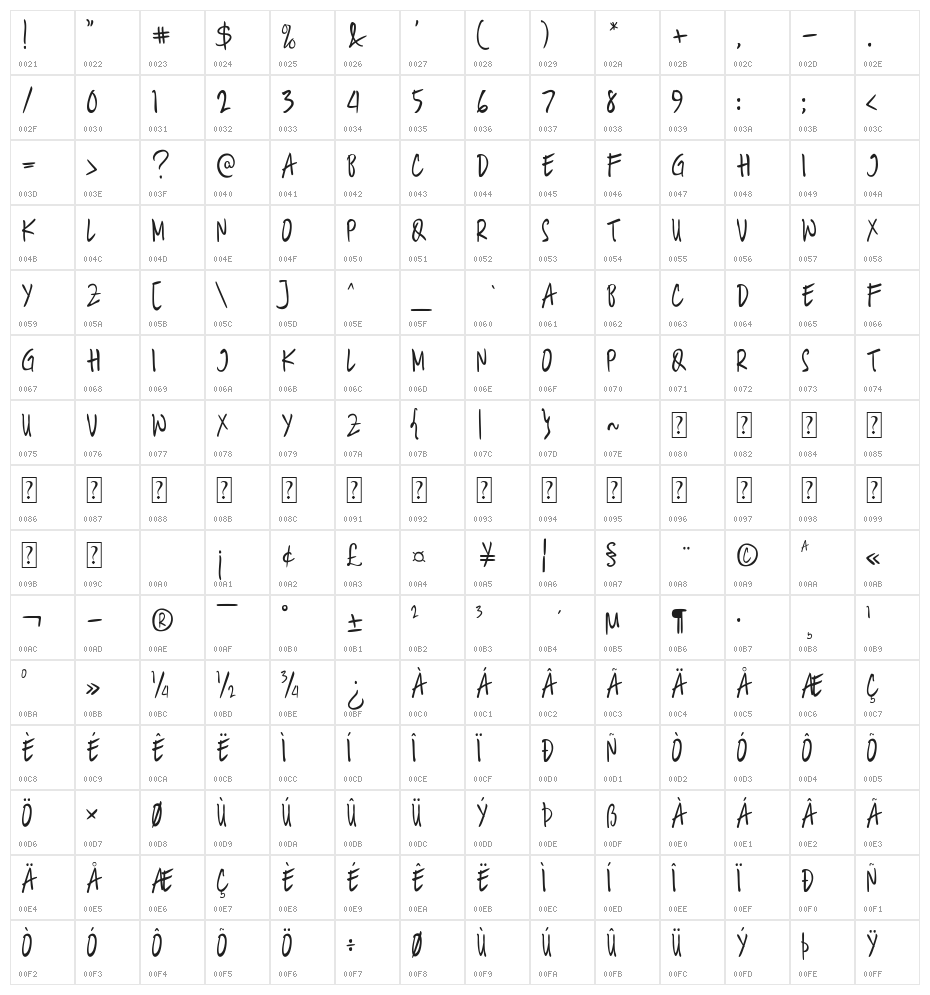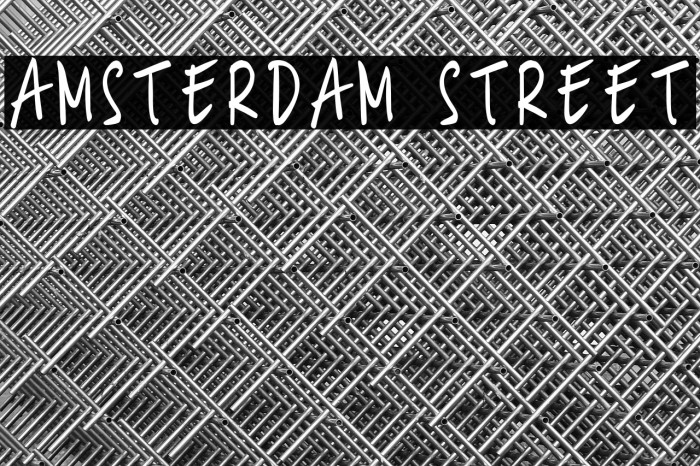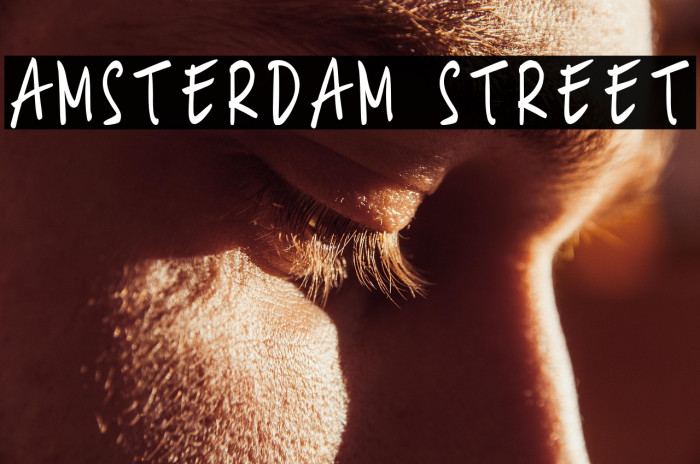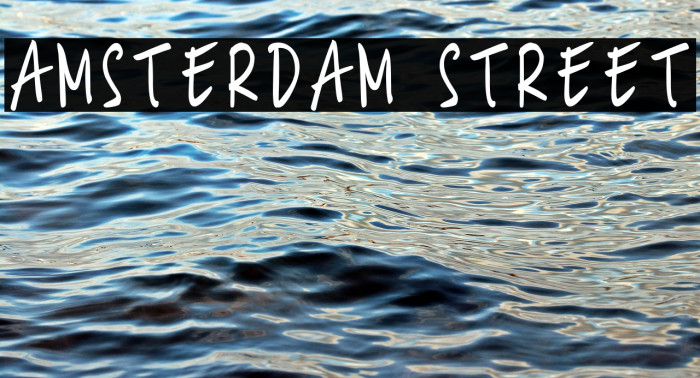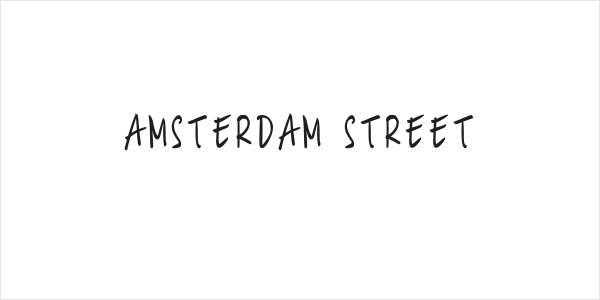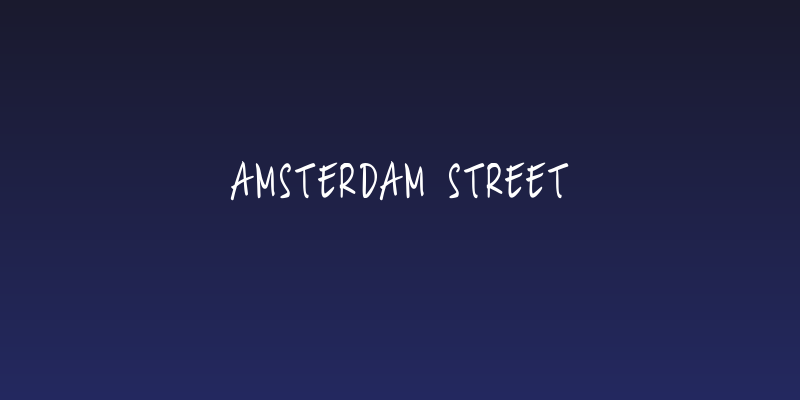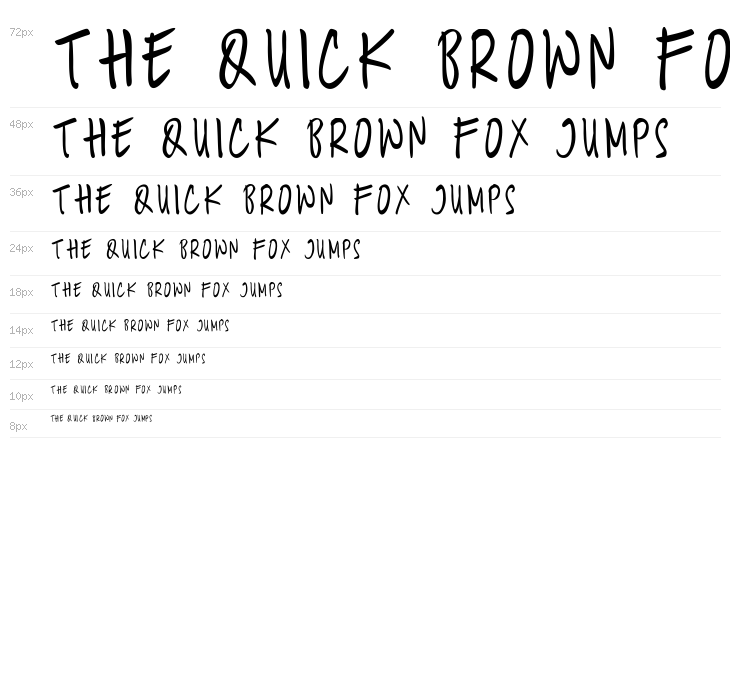
Amsterdam Street Font
Amsterdam Street Description
This font features a playful and casual handwritten style, characterized by its fluid and slightly irregular strokes. The letters have a natural flow, with some variation in thickness that adds a dynamic and lively feel. The uppercase and lowercase letters maintain a consistent style, with rounded edges and a slight slant that enhances the informal appearance. Numbers and special characters are crafted with the same attention to detail, ensuring a cohesive look across all glyphs. The overall design is approachable and friendly, making it suitable for projects that require a personal touch.